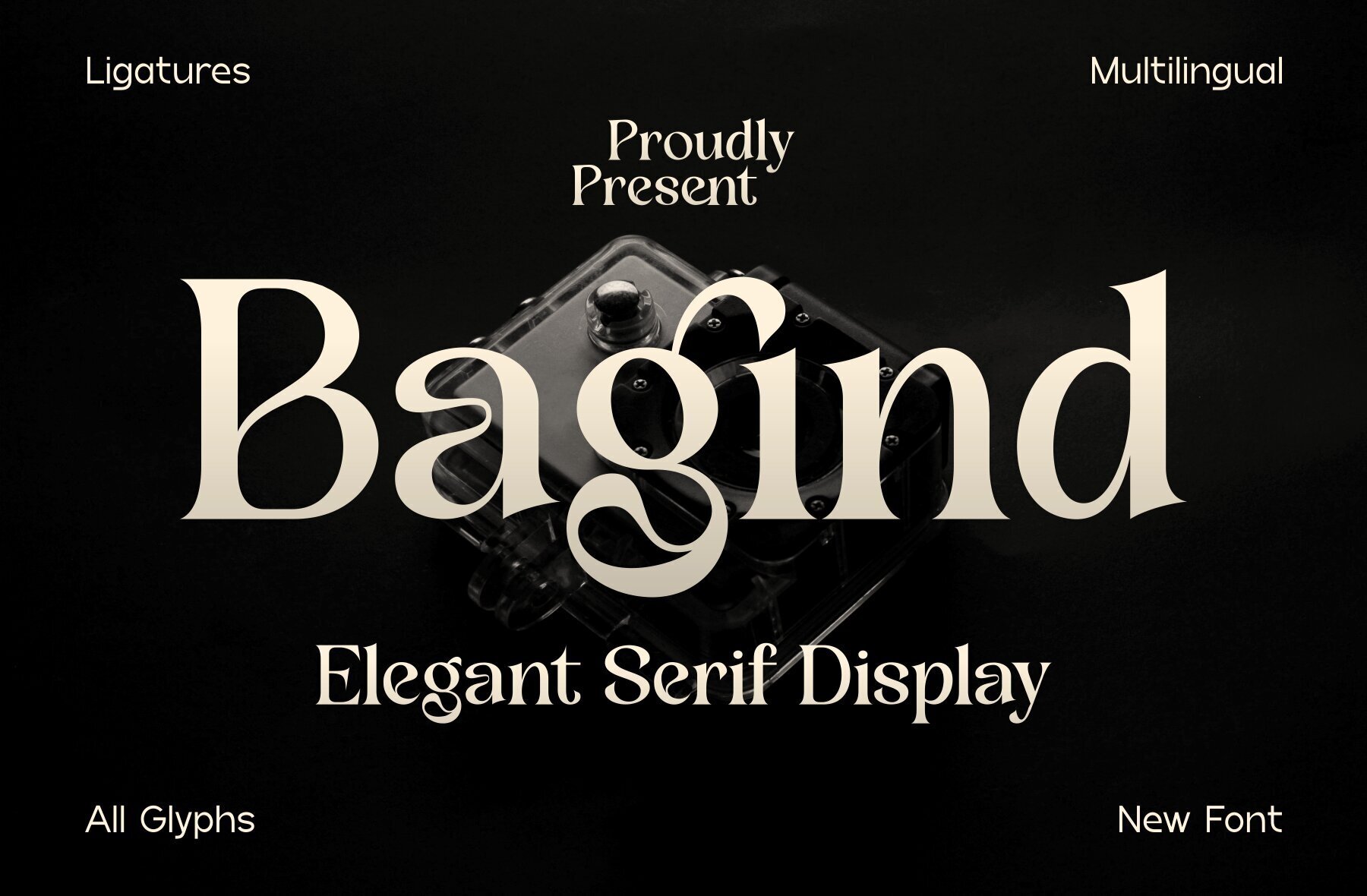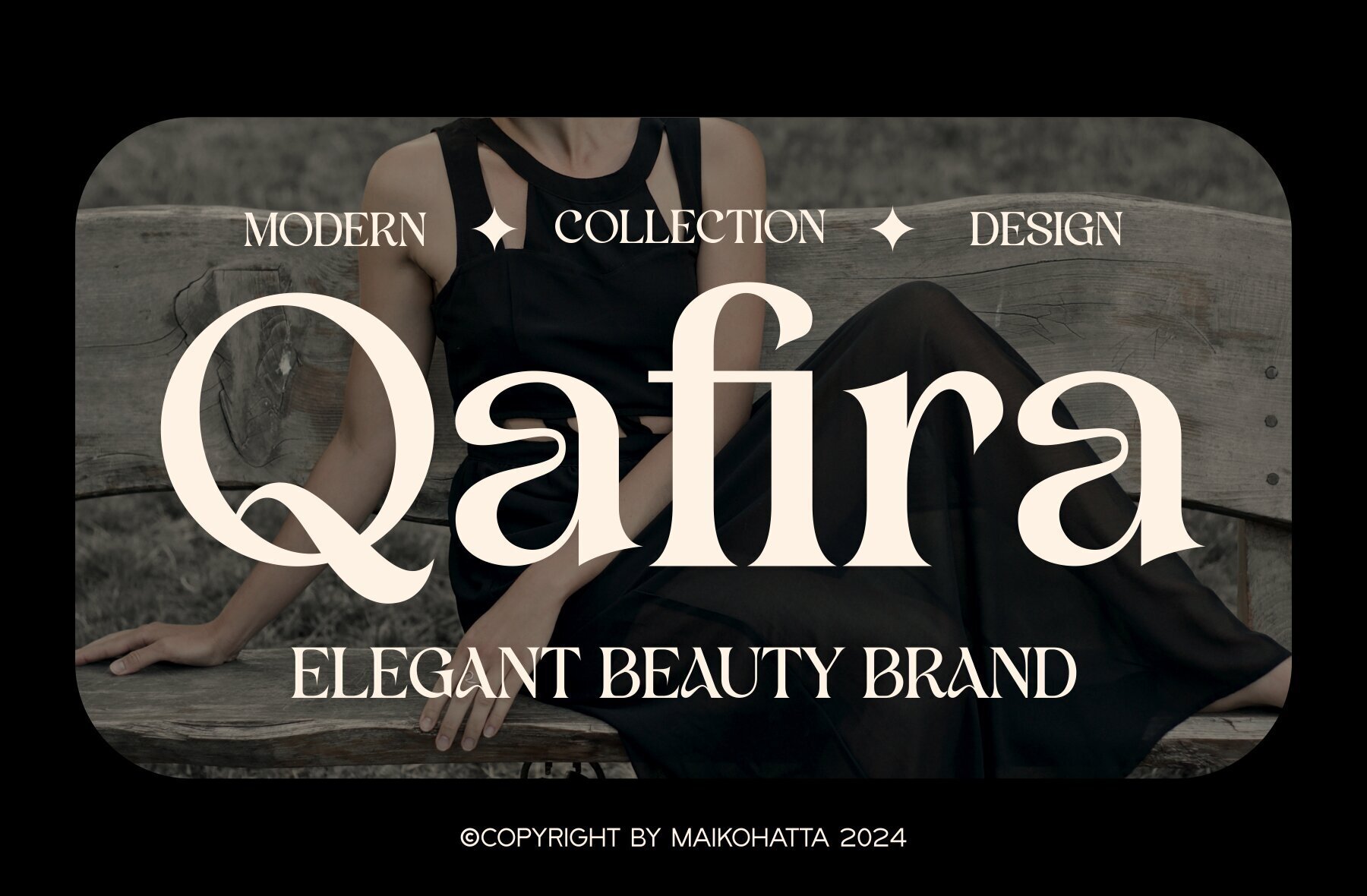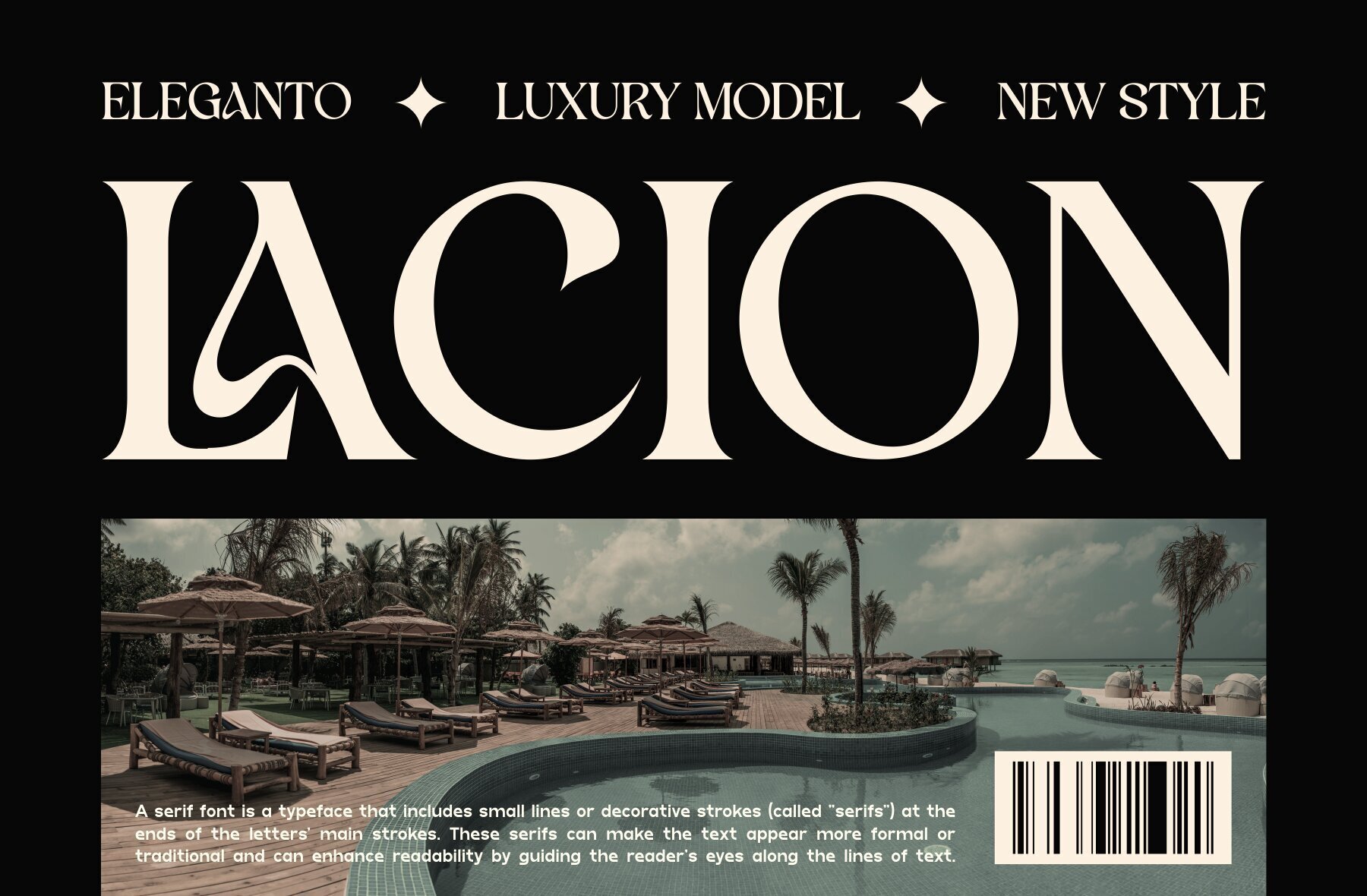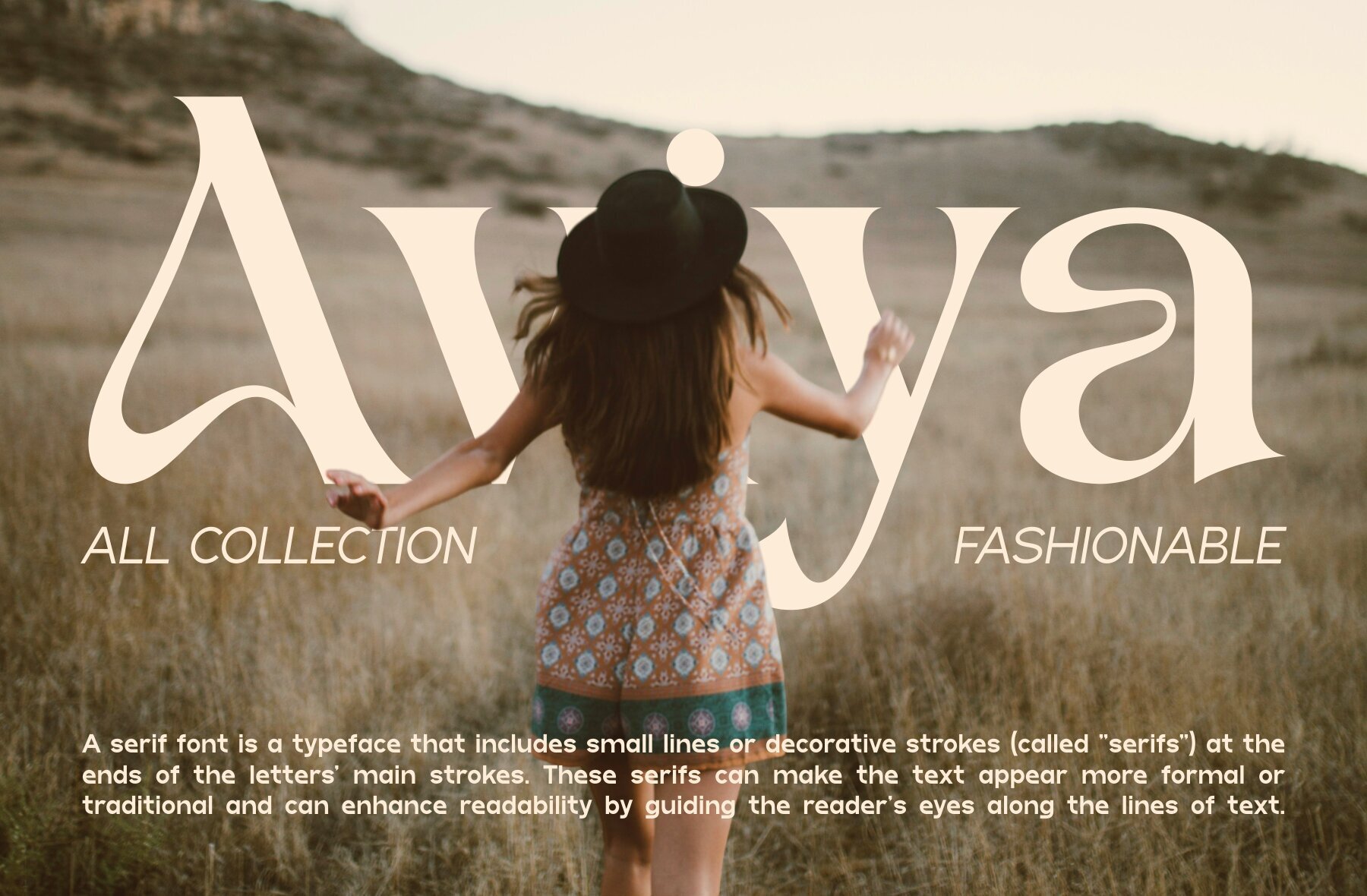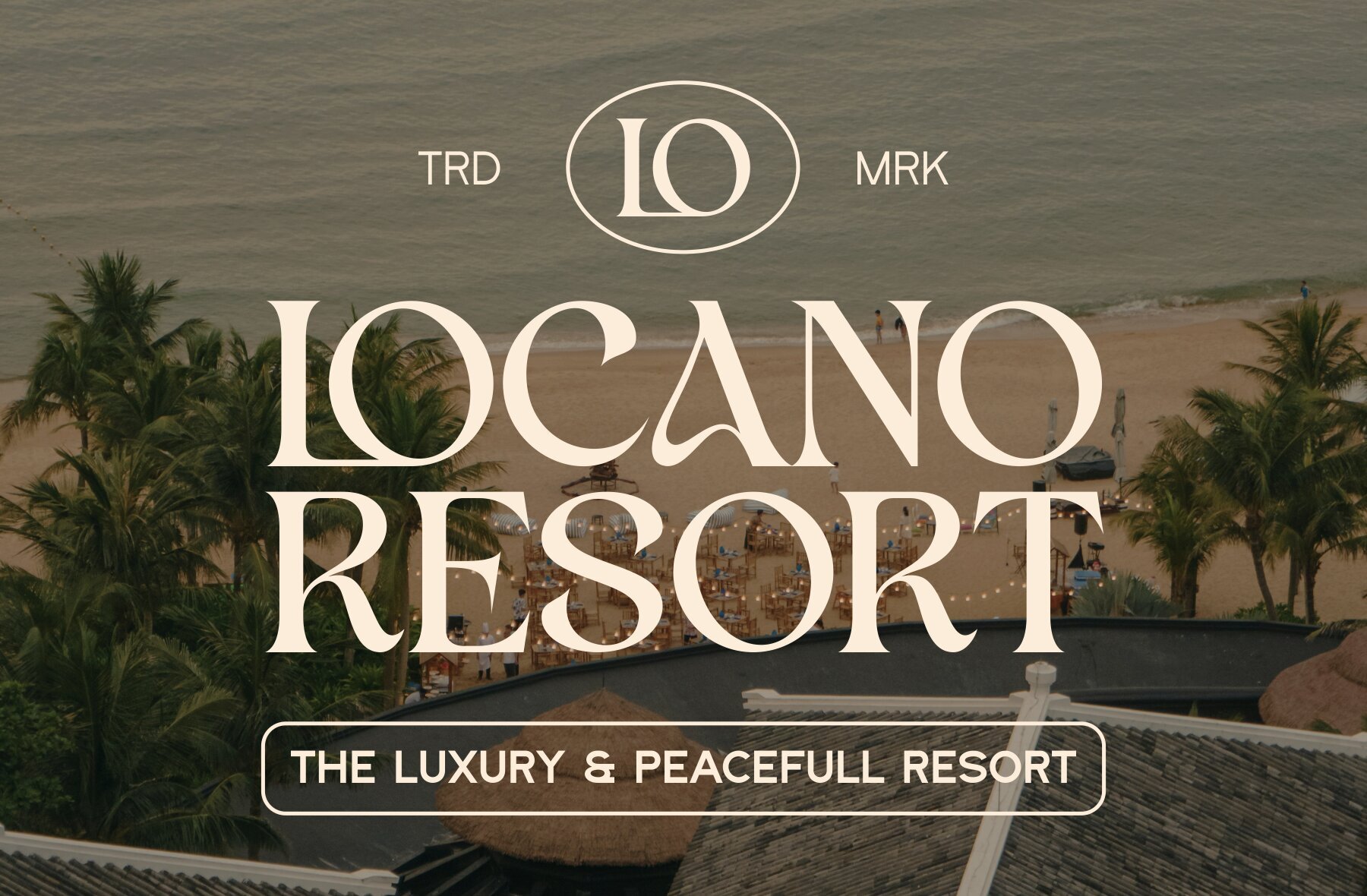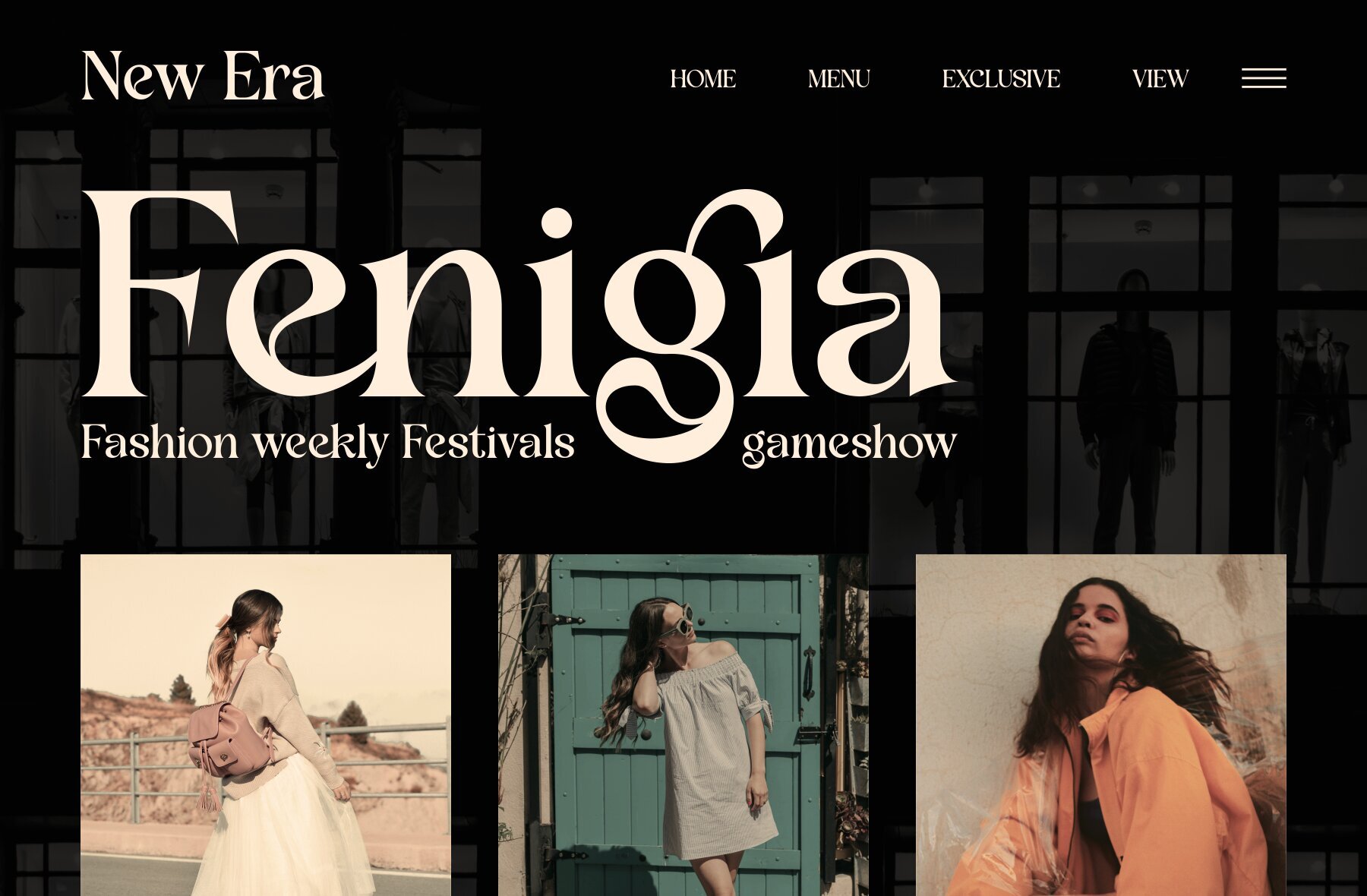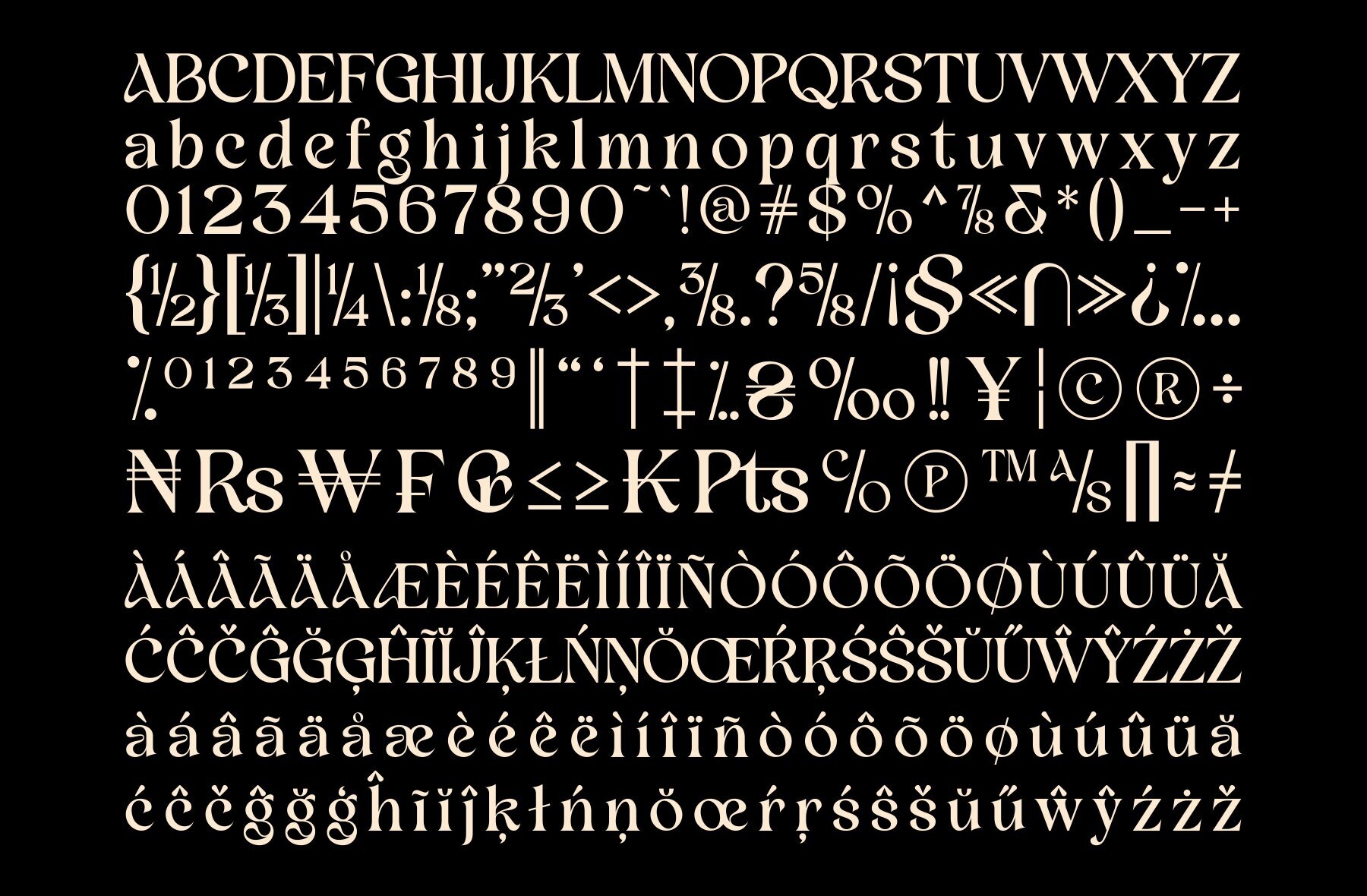
Bagind Font
Bagind Regular
Bagind is an elegant serif display font that exudes luxury and sophistication. Defined by its unique balanced thin and thick lines, gentle curves, and refined serifs, this typeface offers a distinctive and polished aesthetic. The sharp corners and meticulous detailing of each character enhance its striking appearance, making it an ideal choice for high-end design projects.
This font's special characteristics make it perfect for a variety of uses, including branding, editorial layouts, and elegant visual identities. Its luxurious feel and firm structure ensure it stands out in both print and digital mediums, adding a touch of elegance to your designs. Whether you’re aiming for a classic or modern look, Bagind ensures your work captivates and impresses.